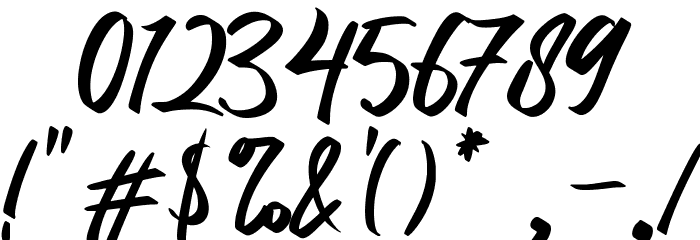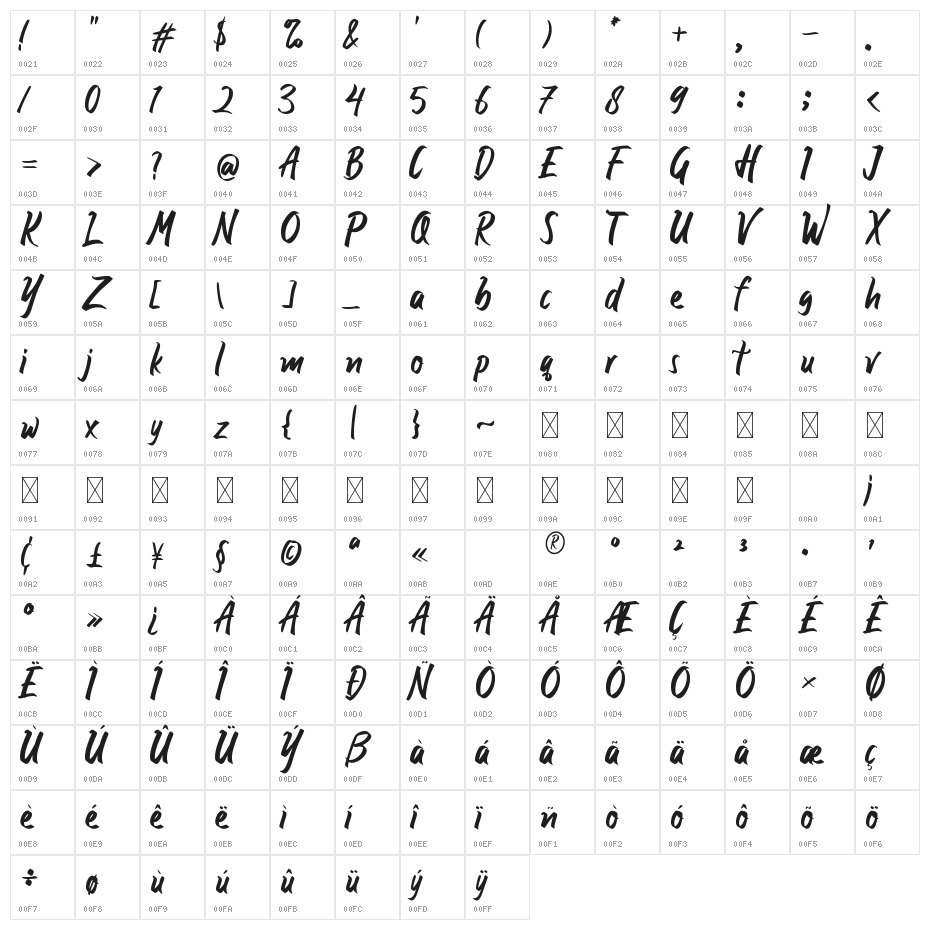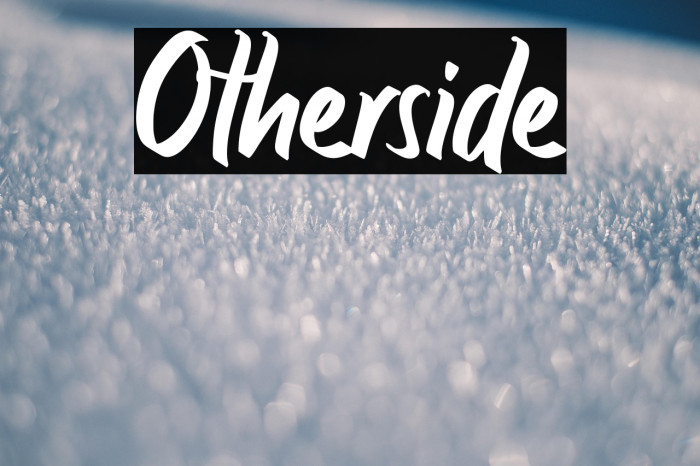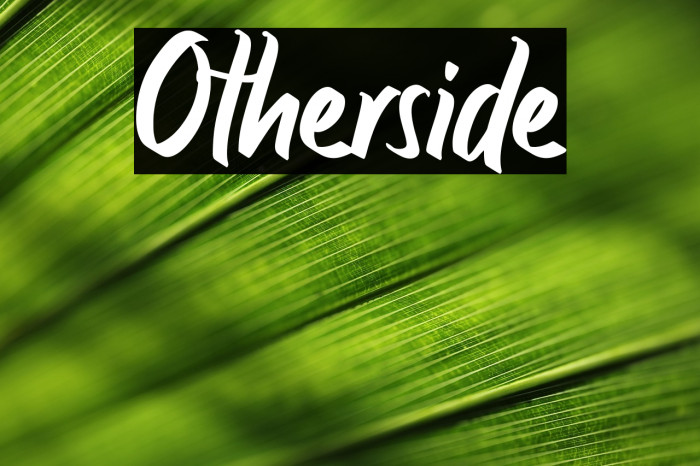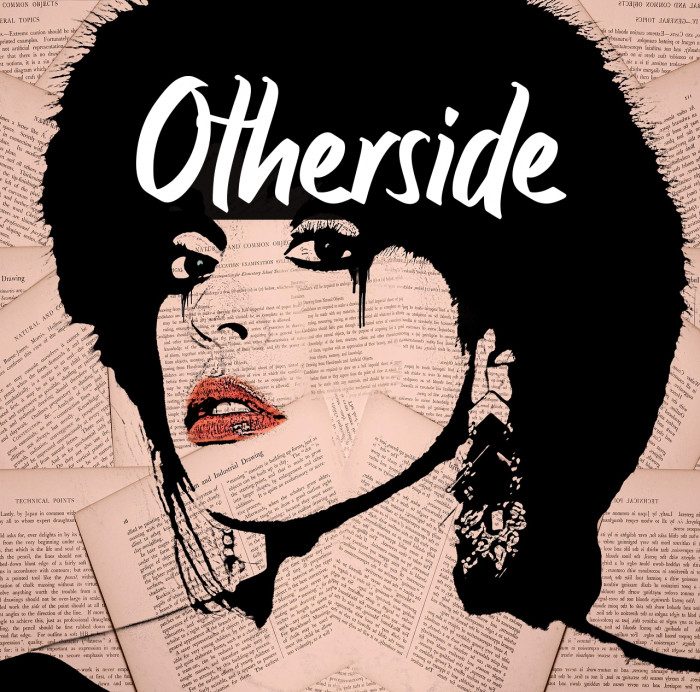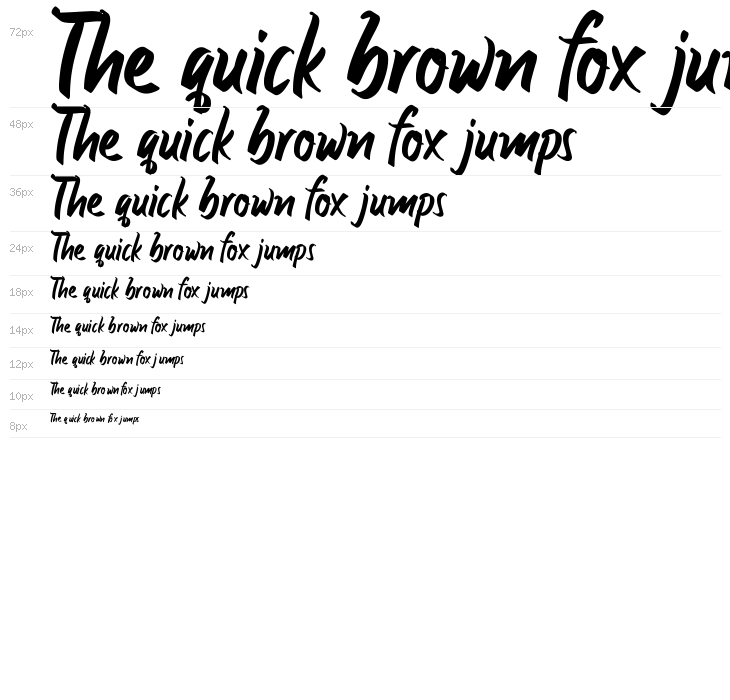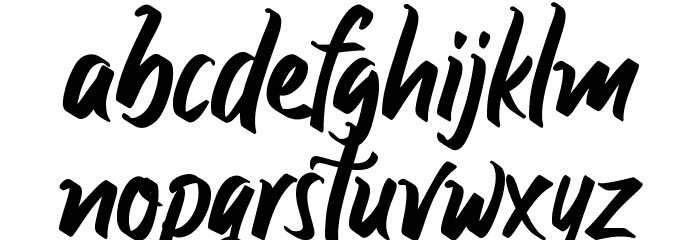
Otherside Font
Otherside Description
This font features a bold and expressive handwritten style, characterized by its dynamic and fluid strokes. The letters are slightly slanted, giving a sense of movement and energy. The uppercase letters are tall and commanding, while the lowercase letters maintain a consistent flow with a playful touch. Numbers and special characters are crafted with the same lively spirit, ensuring a cohesive look across all elements. The overall appearance is both artistic and approachable, making it suitable for creative and informal applications.
| Proposed Projects | Ideal for branding, posters, greeting cards, and social media graphics where a personal and artistic touch is desired. |